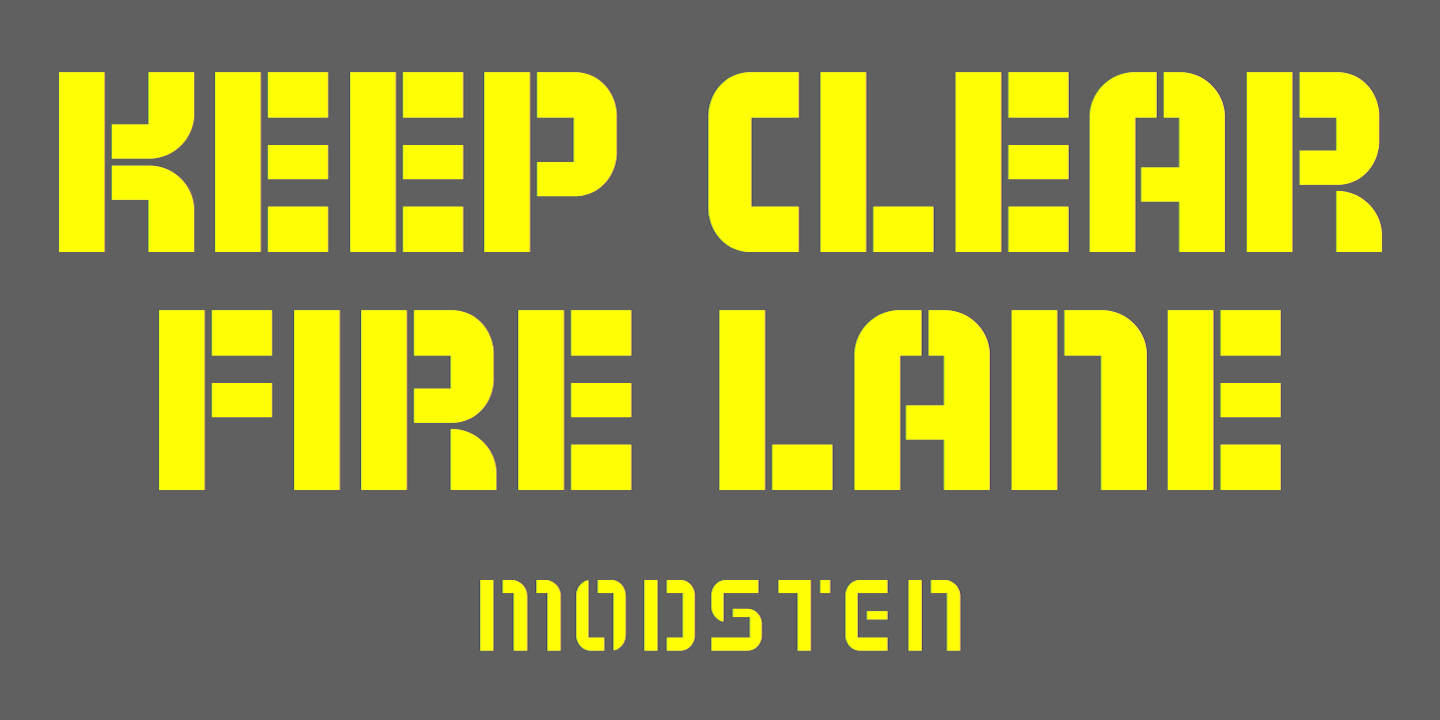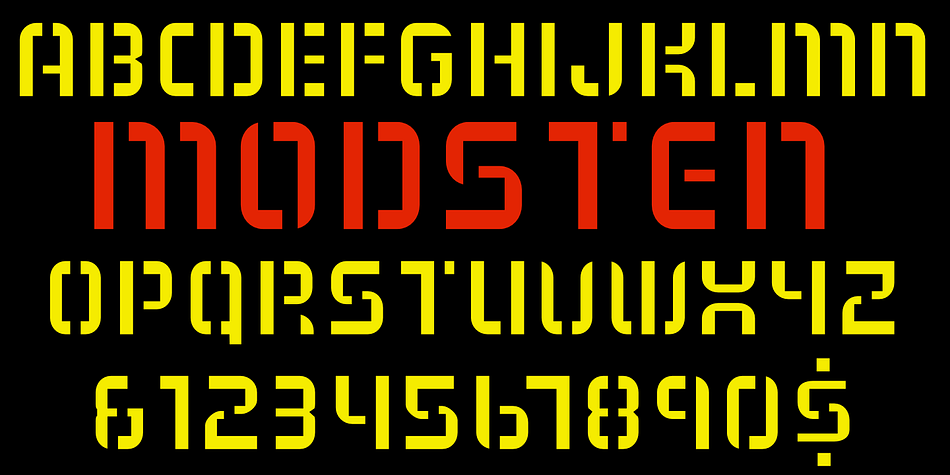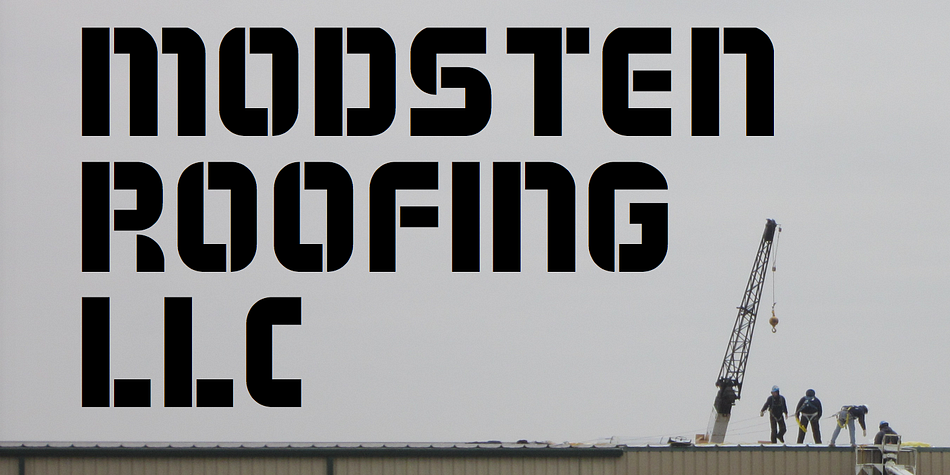
MODSTEN
Designed by Robert Schenk, Modsten is a stencil font family. This typeface has two styles and was published by Ingrimayne Type.
Modsten-Bold is a modernistic stencil design with two sets of capital letters. Modsten-plain was added to complete the family.